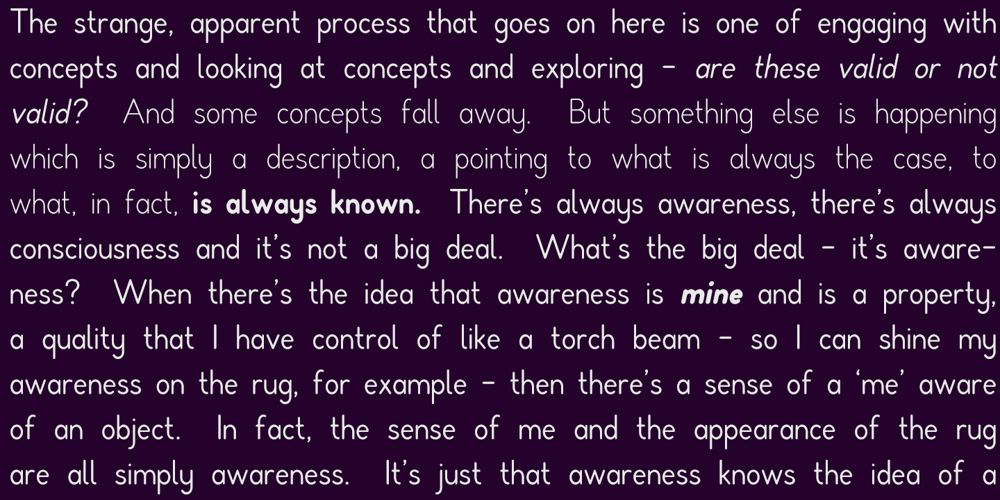
Rondell Font Family was designed by Tanya Davis and published by Scrowleyfonts. Rondell contains 24 styles and family package options. Rondell was originally designed in 2011 as a reasonably priced variable width and weight font. There were a couple of things about it that I didn’t like and so I withdrew it from sale. Since then I have found myself using it for many different projects and have realised how useful and versatile it is. Therefore I have fixed the things I didn’t like about it and it is now available again. Rondell is a simple, smart, sans serif font. Rounded corners make it slightly informal and friendly.